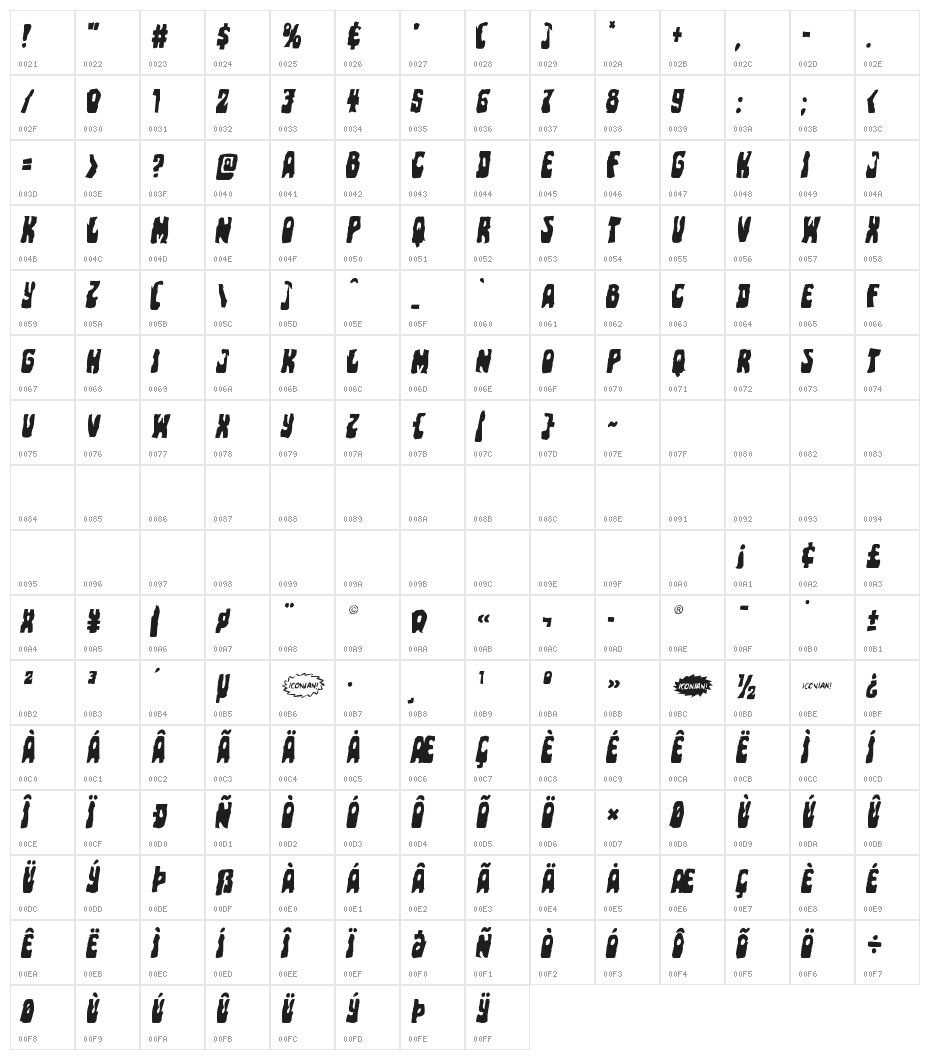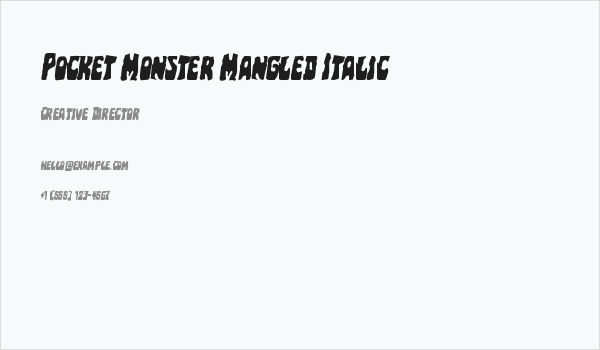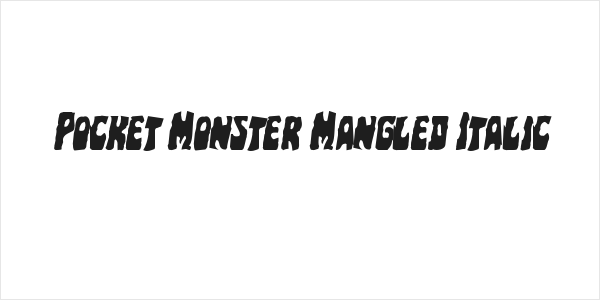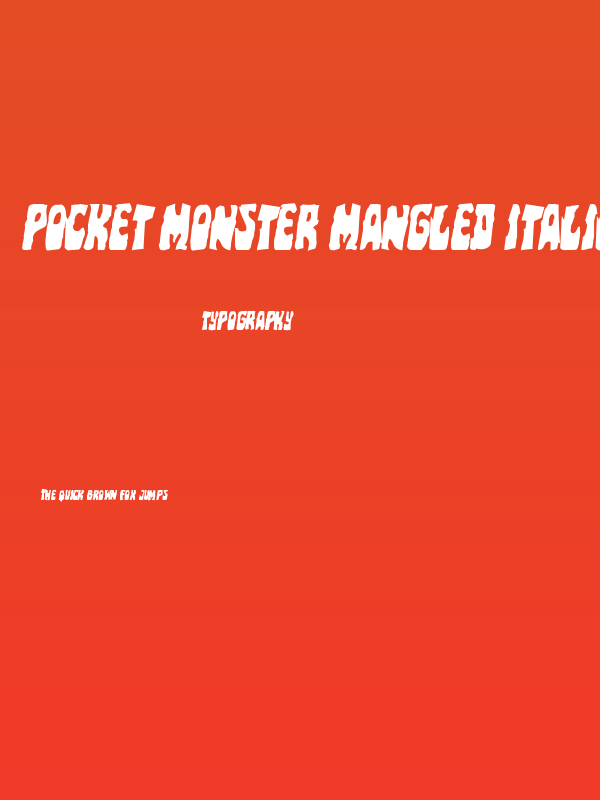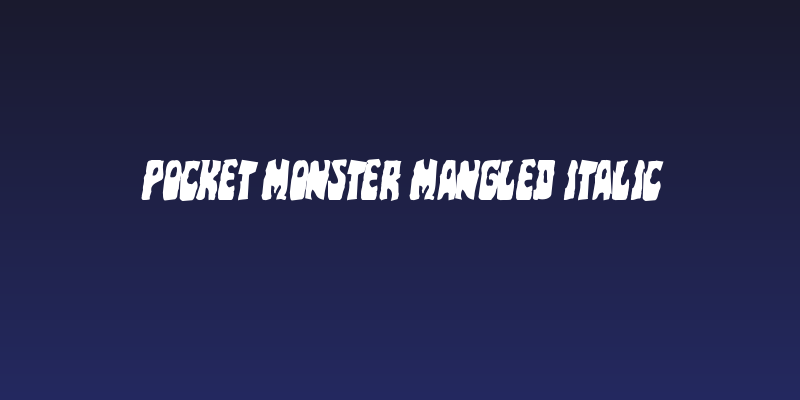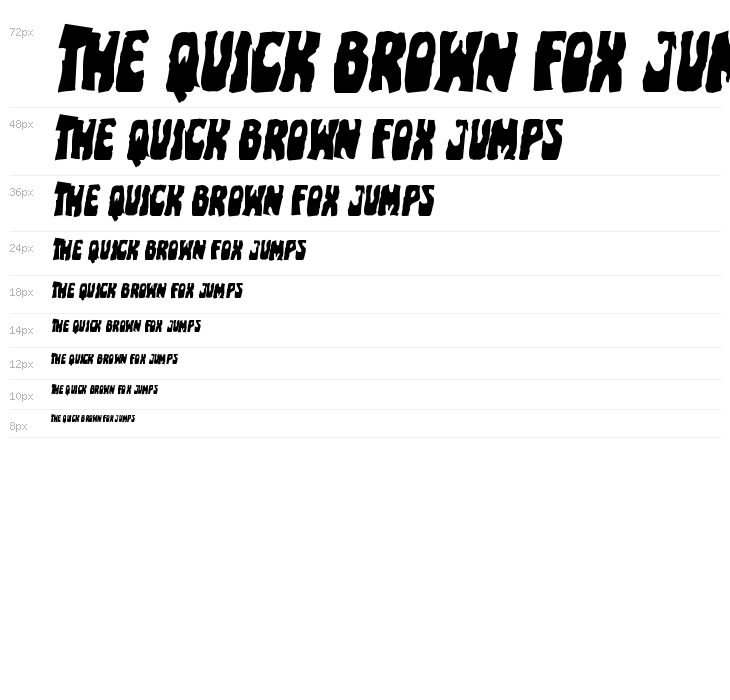
Pocket Monster Mangled Italic Font
Pocket Monster Mangled Italic Description
This font features a bold, distorted style with an italic slant, creating a chaotic and energetic appearance. The characters are heavily stylized with irregular edges and varying thickness, giving them a mangled look. The uppercase and lowercase letters maintain a consistent height, while the numbers and special characters follow the same distorted theme. The overall design is eye-catching and unconventional, making it suitable for projects that require a strong visual impact.
| Proposed Projects | Ideal for horror-themed posters, edgy branding, video game titles, or any project needing a dramatic and unconventional typeface. |